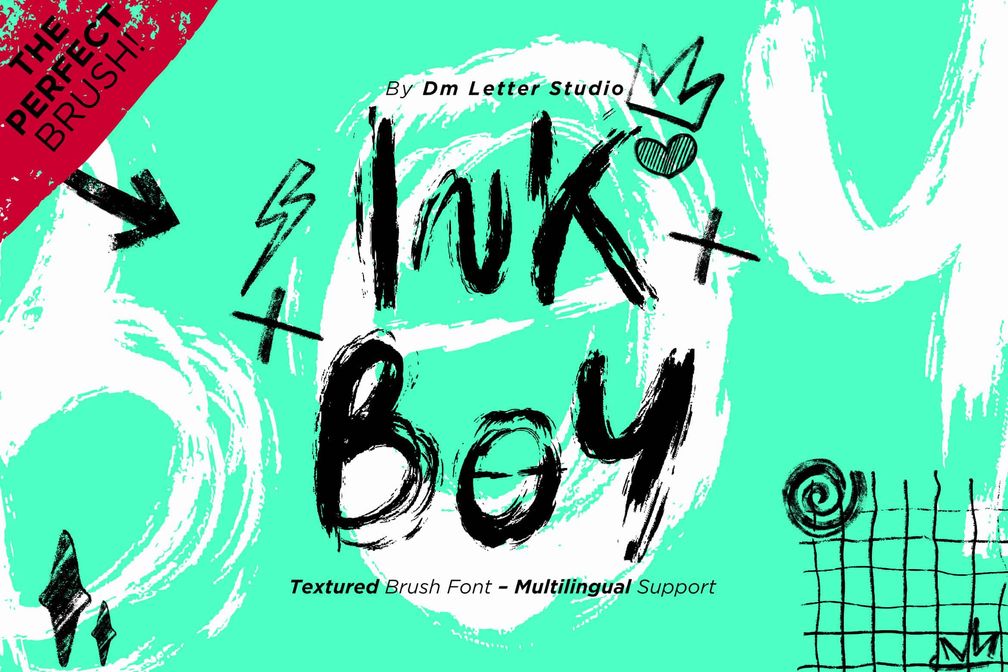
Ink Boy
Ink Boy – Textured Brush Font
Ink Boy is a bold and expressive brush font with a raw, hand-painted texture. Designed to bring energy and personality to your projects, this font is perfect for posters, streetwear branding, social media graphics, product packaging, and creative headlines. Its rugged strokes and natural brush details make it a standout choice for dynamic and artistic designs.
• Authentic Brush Texture: Hand-painted strokes with a natural, organic feel.
• Bold & Expressive Design: Perfect for edgy, high-impact visuals.
• Versatile Use: Ideal for branding, posters, packaging, social media, and apparel.
• Multilingual Support: Covers multiple languages with extended Latin characters.
• Complete Character Set: Includes uppercase, lowercase, numbers, punctuation, and symbols.